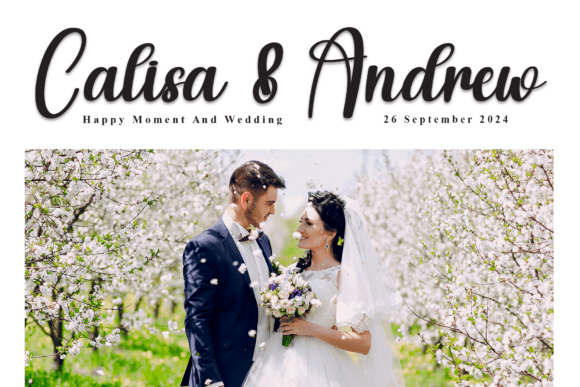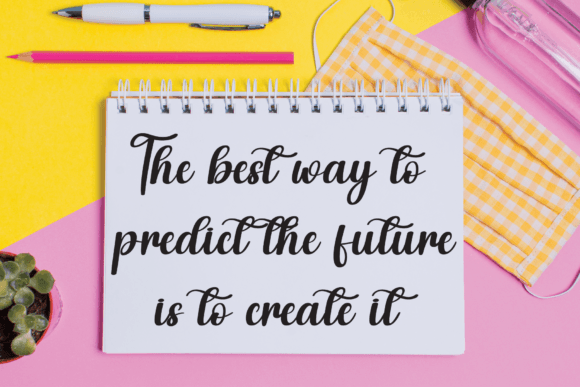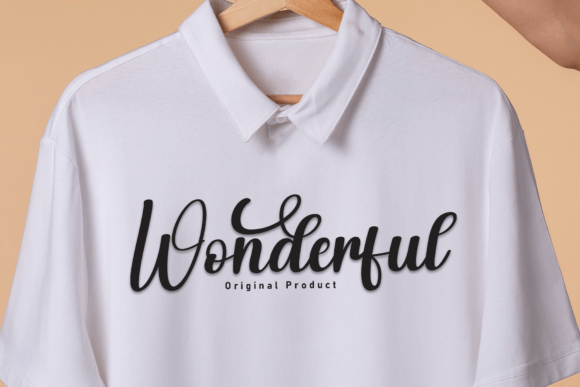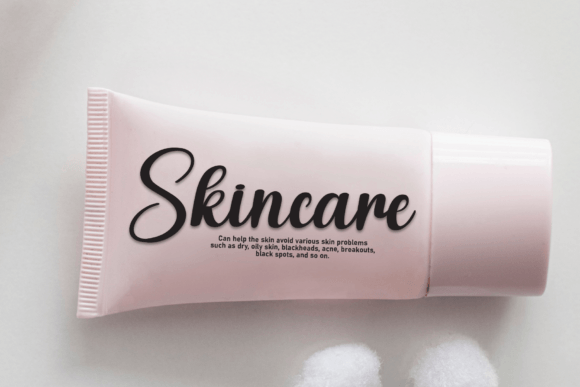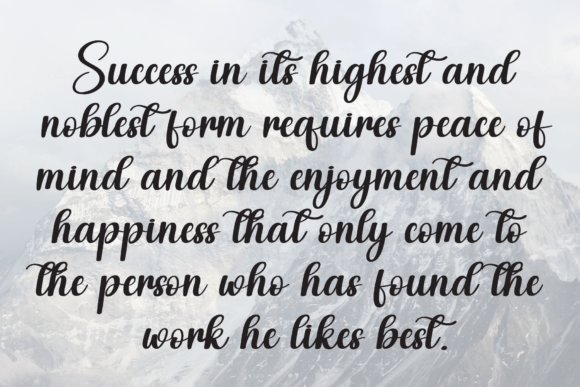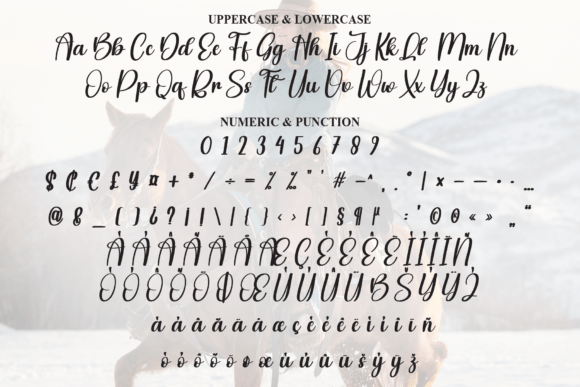
Cowgril Font: Adding a Touch of Playful Elegance to Your Designs
In the world of typography, fonts play a crucial role in conveying the tone and personality of a design. For designers and crafters looking for a bold, yet playful and casual font, Cowgril Font is an excellent choice. This handwritten font is perfect for adding a lively touch to headlines, invitations, and various design projects that require a unique blend of rustic charm and modern elegance.
What Makes Cowgril Font Stand Out?
Cowgril Font is characterized by its thick strokes and playful letters, which give it a distinctive and eye-catching appearance. The font’s bold nature makes it ideal for designs that need to grab attention, while its handwritten feel adds a personal and approachable touch. Whether you’re working on a project that requires a fun and casual vibe or a more stylish and sophisticated look, Cowgril Font is versatile enough to fit the bill.
Key Features of Cowgril Font
- Bold and Playful: The font’s thick strokes and lively letters make it perfect for creating eye-catching headlines and titles.
- Handwritten Style: Cowgril Font boasts a natural, handwritten look that adds a personal touch to any design.
- Rustic yet Modern: The font seamlessly blends rustic charm with modern elegance, making it suitable for a wide range of design projects.
- Versatile: From invitations and posters to digital content and branding, Cowgril Font can be used across various mediums.
Uses of Cowgril Font
Cowgril Font’s versatility makes it an excellent choice for a variety of design projects. Here are some of the best uses for this font:
- Headlines and Titles: The font’s bold nature makes it perfect for creating attention-grabbing headlines and titles.
- Invitations and Announcements: Add a playful and personal touch to your invitations, announcements, and greeting cards.
- Branding and Logo Design: Use Cowgril Font to create unique and memorable logos and brand identities.
- Digital Content: Enhance your digital content, such as blog posts, social media graphics, and website headers, with a touch of personality.
- Crafting and DIY Projects: Perfect for crafters, the font can be used in various DIY projects, such as making personalized gifts, labels, and signs.
Tips for Using Cowgril Font Effectively
To get the most out of Cowgril Font, consider the following tips:
- Mix and Match: Combine Cowgril Font with other fonts to create a unique and visually appealing design.
- Play with Sizes: Experiment with different font sizes to emphasize certain elements and create visual hierarchy.
- Color Matters: Choose colors that complement the font and enhance the overall aesthetic of your design.
- Keep it Simple: While Cowgril Font is bold and playful, ensure that your design doesn’t become too cluttered or overwhelming.
Cowgril Font is a fantastic addition to any designer’s or crafter’s toolkit. Its bold, yet playful and casual nature makes it perfect for a wide range of projects, from headlines and invitations to branding and digital content. With its thick strokes, playful letters, and unique blend of rustic and modern charm, Cowgril Font is sure to add a lively touch to your designs. So, why not give Cowgril Font a try and see how it can elevate your next design project?